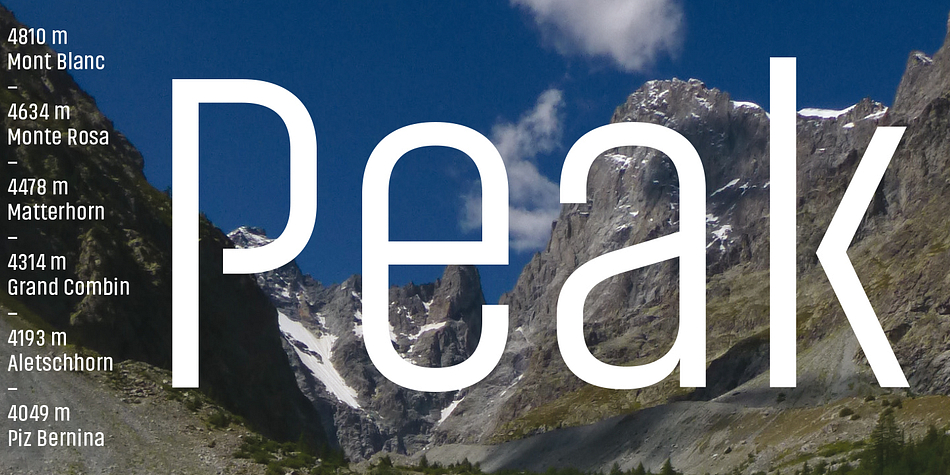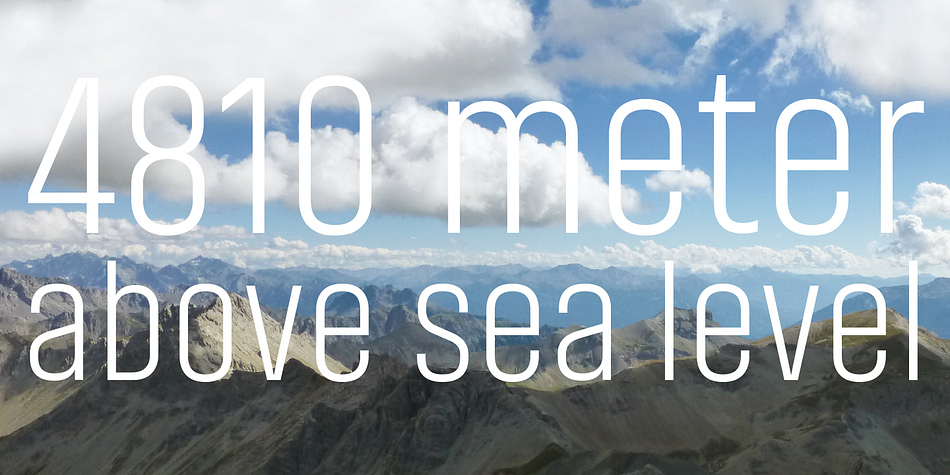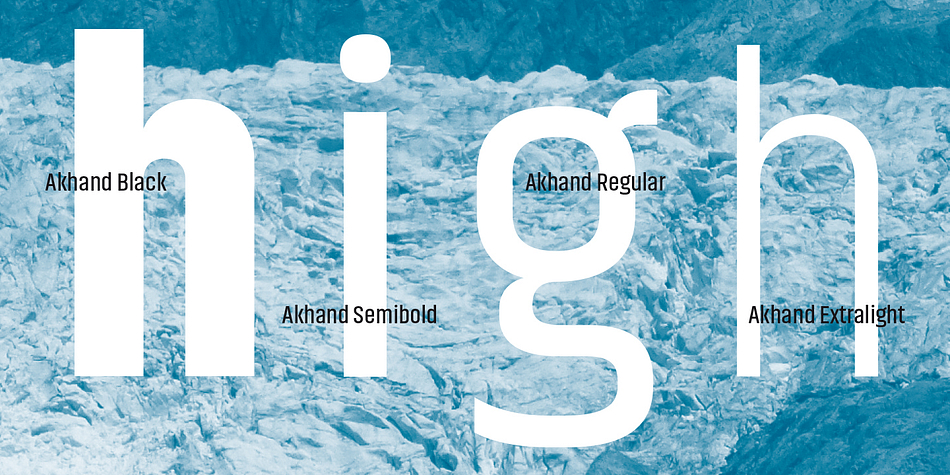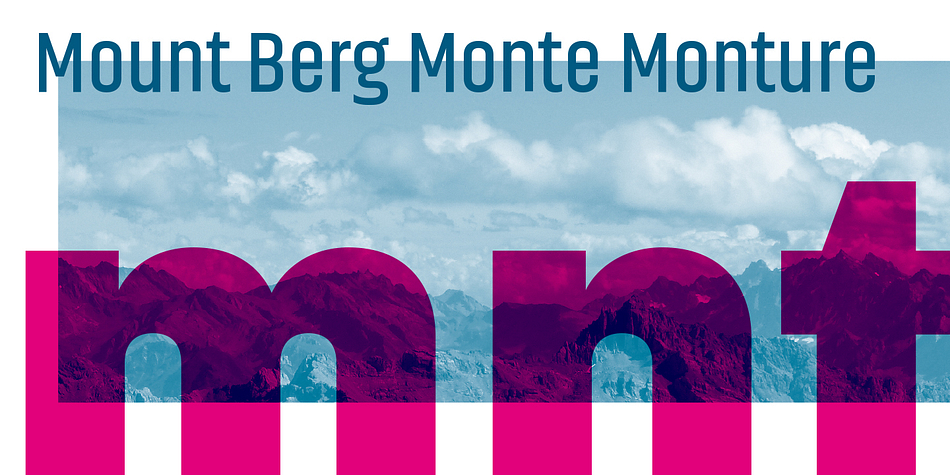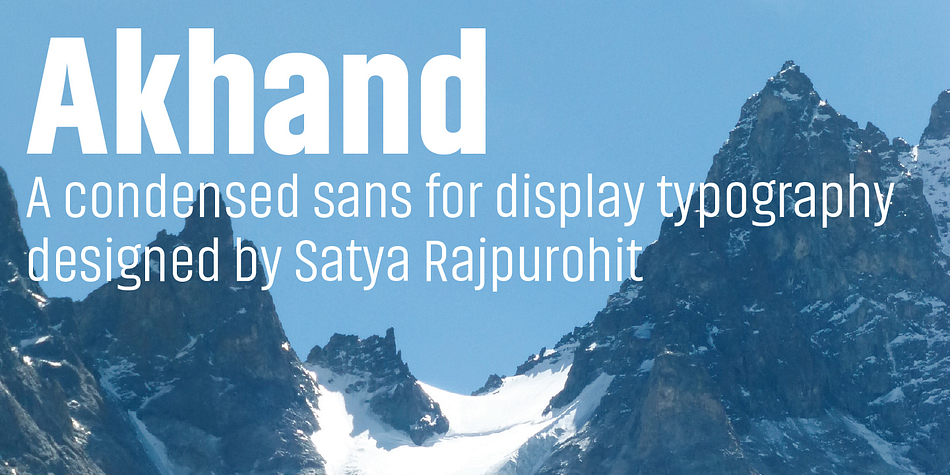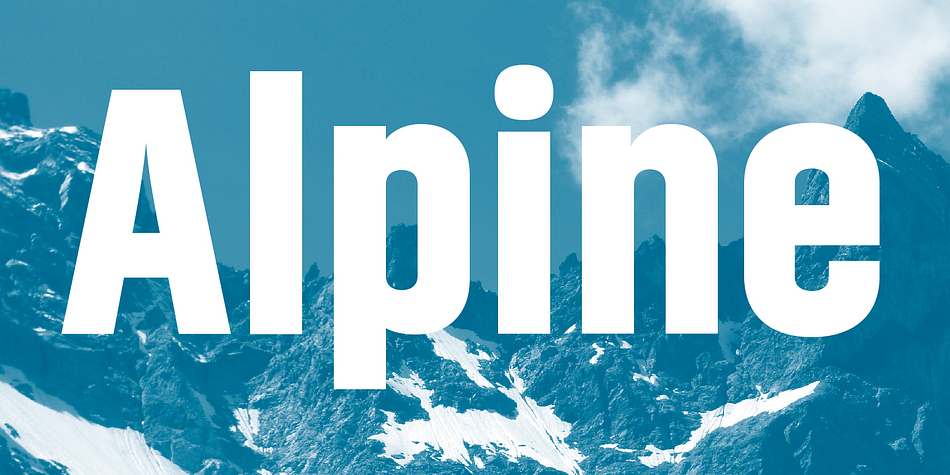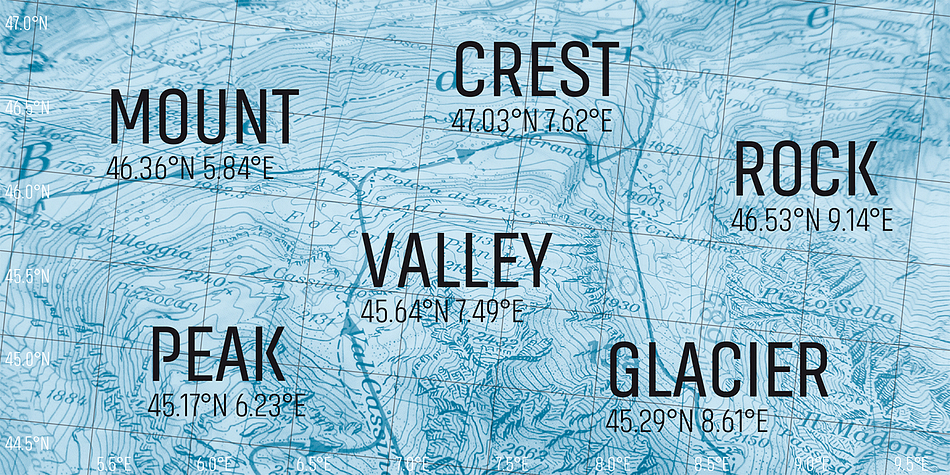
Akhand is a display sans font family. This typeface has eight styles and was published by Indian Type Foundry.
Akhand is a family of eight fonts for display applications. Featuring condensed straight-sided letterforms, Akhand is a virtually mono-linear sans serif. The design of the face is based on a modular structure, but not every aspect looks constructed. Its forms look great on their own in logos, and headlines function well when different weights are combined together.
The fonts are part of the larger Akhand super family, which covers a variety of Indian scripts.